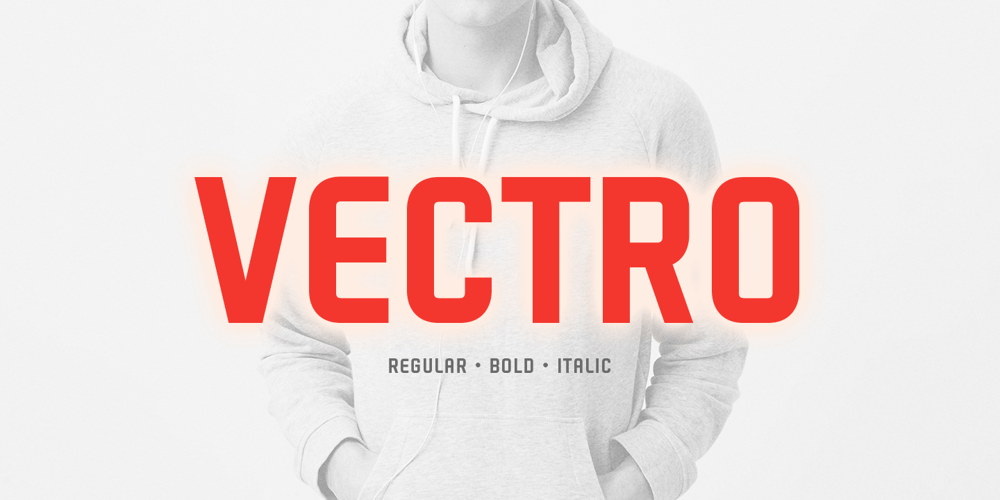
Vectro Font Family was designed by Mukhlis Muhammad and published by Variatype. Vectro contains 4 styles and family package options. ABOUT THIS FONTVectro is a casual and clean condensed sans font designed to make powerful corporate branding, copy ads, logotype, and much more.FONT FEATURES- Additional Accents- 66 Languages- KerningSOFTWARE RECOMMENDATION- Adobe Photoshop- Adobe Illustrator- Adobe InDesign- Affinity Designer